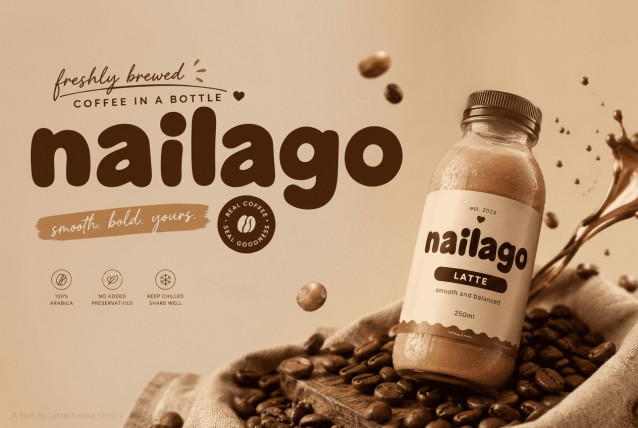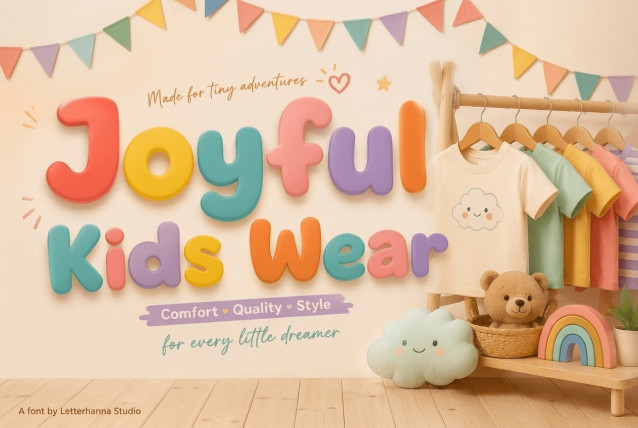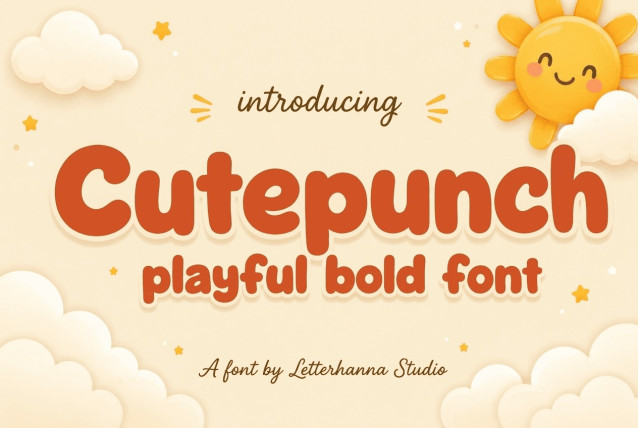
Cutepunch Font: A Bold, Bubbly Cute Font for Playful Designs
There’s a special kind of joy that comes from typography with personality — and that’s exactly what Cutepunch delivers. This bubbly cute font takes the round, chunky shapes of kawaii-style lettering and pumps them full of energy, confidence, and a touch of playful punch. It’s not just cute — it’s cute with attitude.
Picture a font that looks like it just bounced off a candy wrapper. Every letter in Cutepunch is inflated, rounded, and generous in proportion, almost like it’s holding its breath and puffing up for the camera. The lowercase letters are especially charming, with soft curves and full bowls that feel approachable and warm. Meanwhile, the uppercase and numeral set carry that same puffy consistency, so nothing ever feels mismatched or out of place. This is a true bold font in every sense — thick strokes, strong presence, and a weight that commands attention even in small sizes.
What makes Cutepunch stand out among other alphabet cute fonts is how effortlessly it balances softness with strength. Many playful fonts lean so far into “cute” that they lose legibility or impact. Cutepunch avoids that trap entirely. Its rounded terminals and consistent stroke width keep it readable at a glance, while its oversized curves keep it fun and huggable. It’s the kind of font that makes people smile before they’ve even finished reading the word.